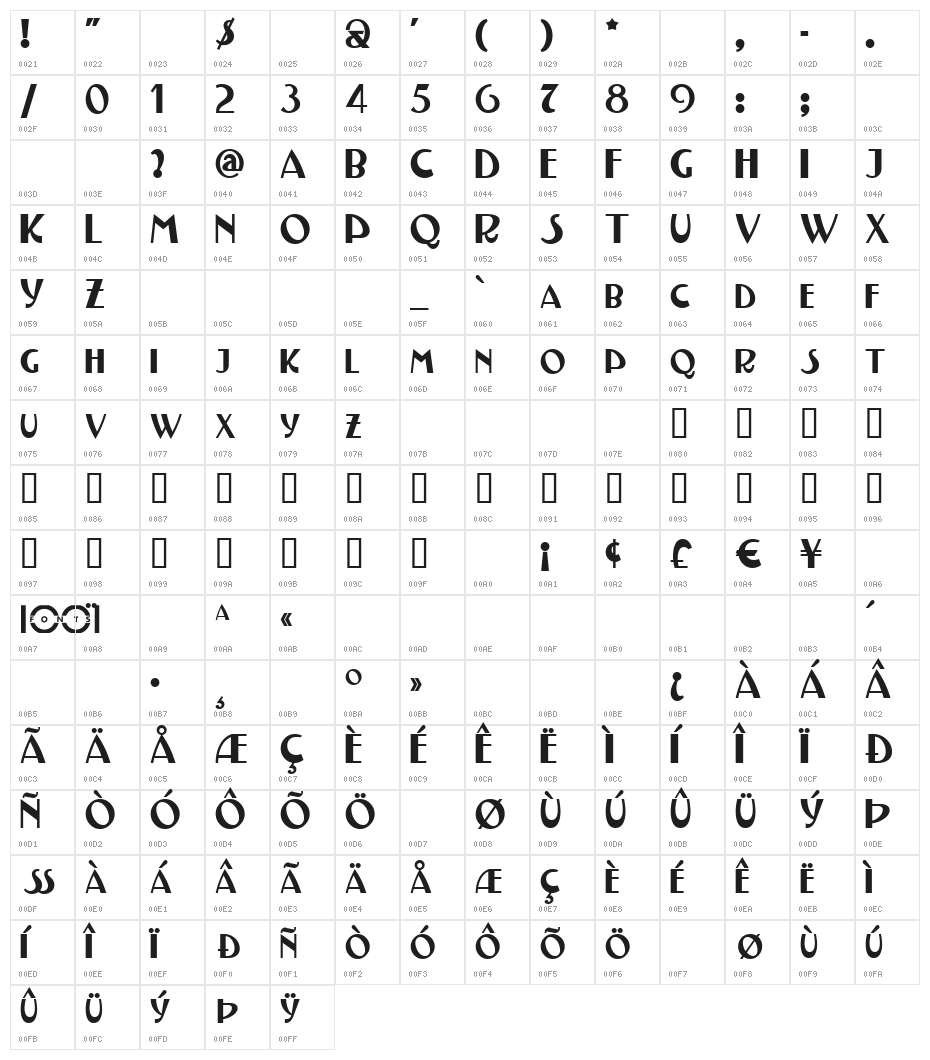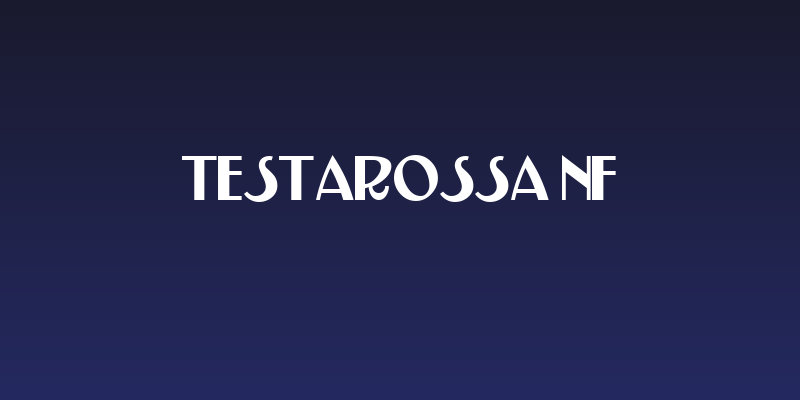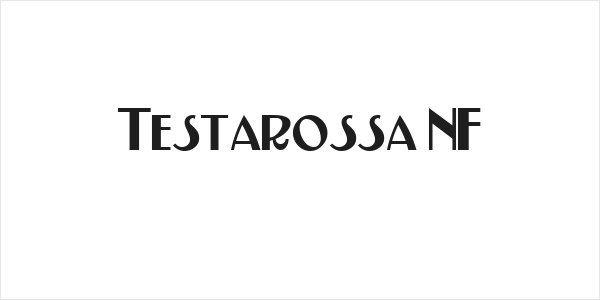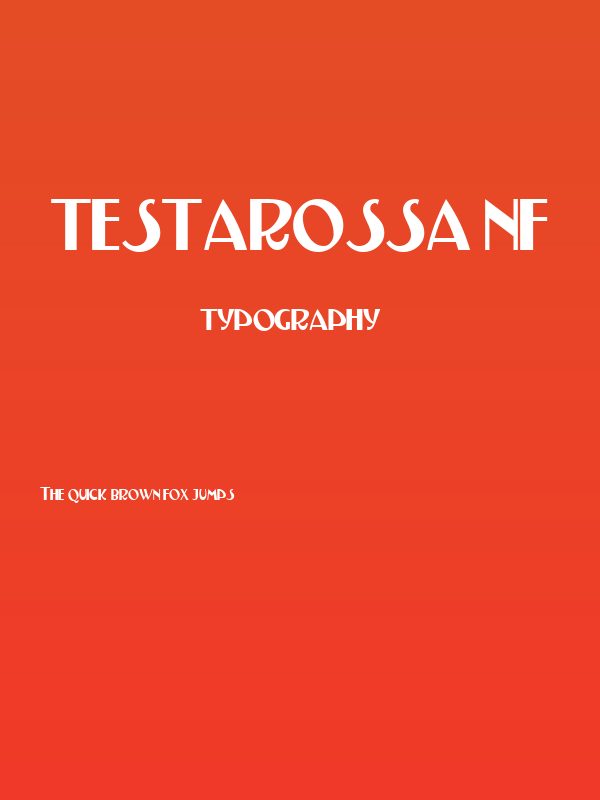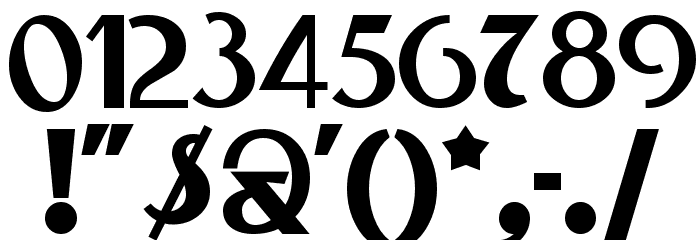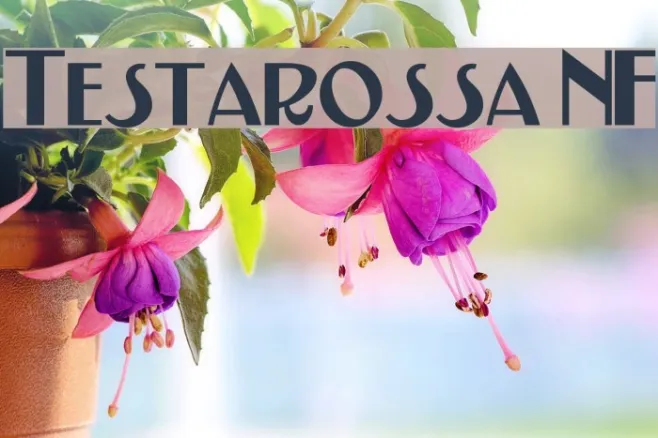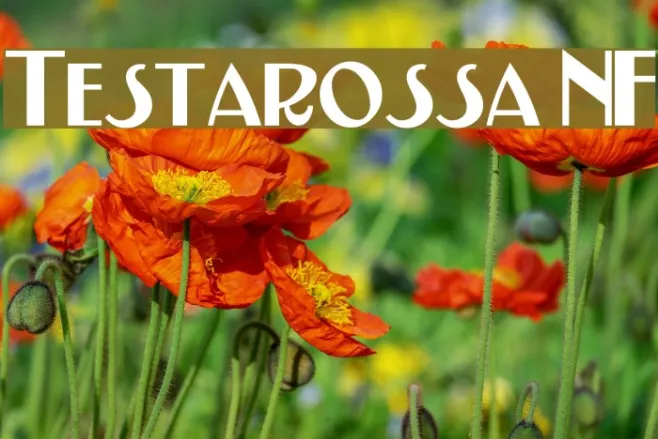
Testarossa NF Font
Testarossa NF Description
This font features a bold and dynamic style with a strong geometric influence. The characters exhibit a unique blend of sharp angles and smooth curves, creating a striking visual impact. The uppercase letters are particularly distinctive, with some characters incorporating unexpected cuts and slants that add to the font's modern and edgy feel. The numerals and special characters maintain this bold aesthetic, ensuring consistency across all glyphs. This font's design is both eye-catching and versatile, making it suitable for a variety of creative applications.